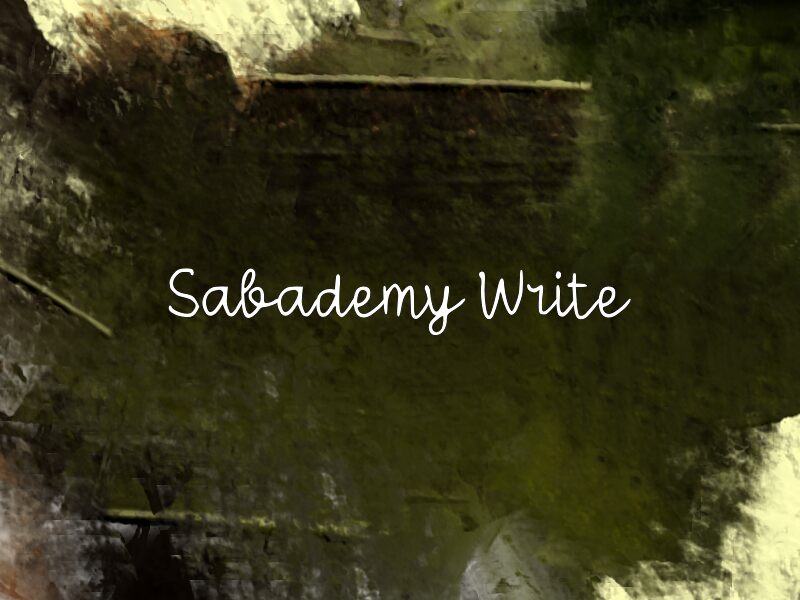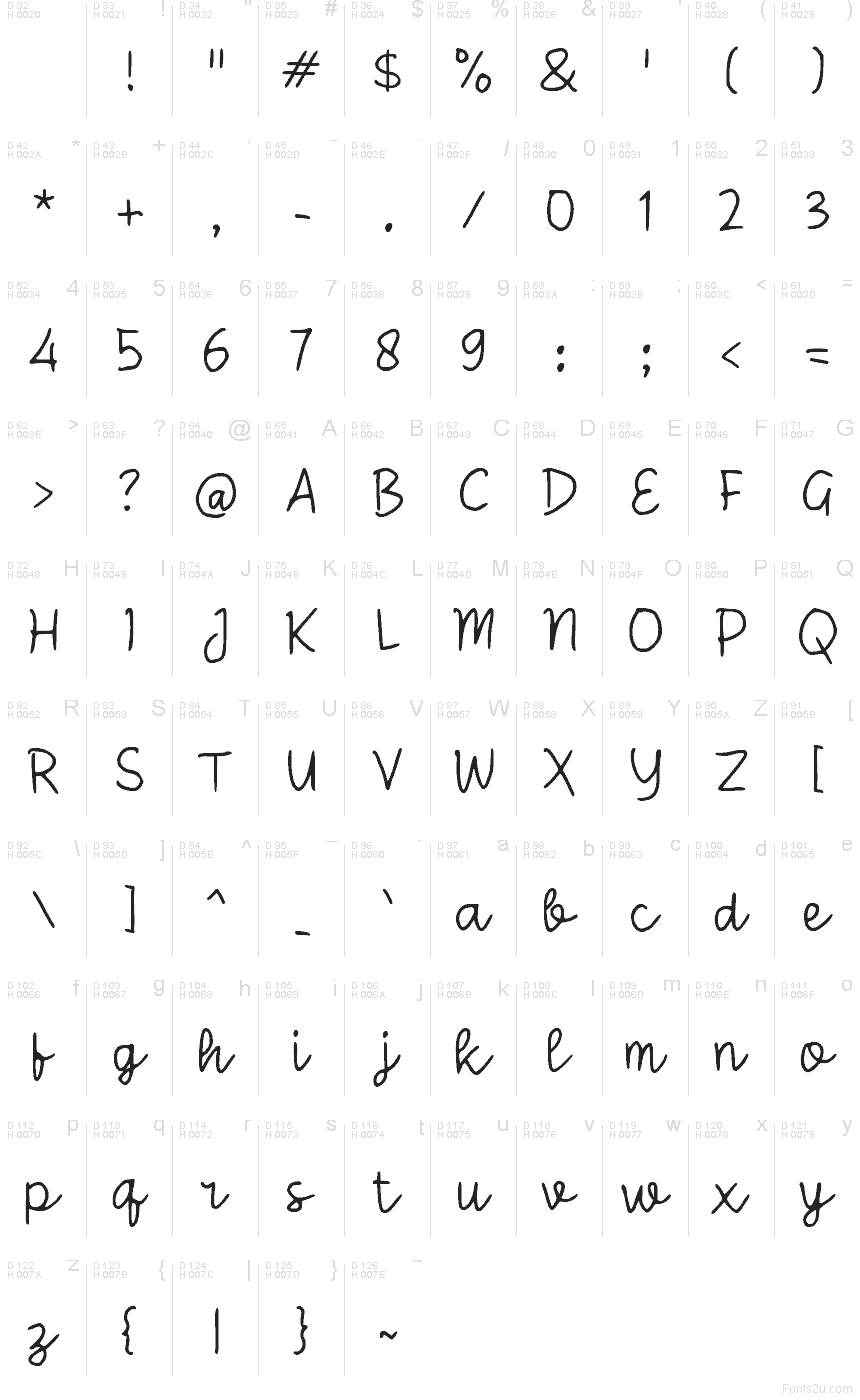
Sabademy Write
Sabademy Write font by wepfont.com is a free handwritten font that finally gives you neat, classroom-style script without looking stiff or mechanical. Its even, monoline strokes feel like careful pen work on smooth paper, with rounded curves that stay friendly and highly readable at smaller sizes. The rhythm between letters is steady and relaxed, so you get that cozy handwritten feel without sacrificing clarity in longer lines of text.
Using Sabademy Write, this free font shines on educational worksheets, student planners, kids’ branding, classroom posters, quote graphics, and casual invitations. The letters connect with an easy flow that makes directions, labels, and short notes feel approachable and personal. For a clean contrast, pair this typeface with a simple sans serif for headings or small captions, and let Sabademy Write handle the warm, conversational parts of your layout.